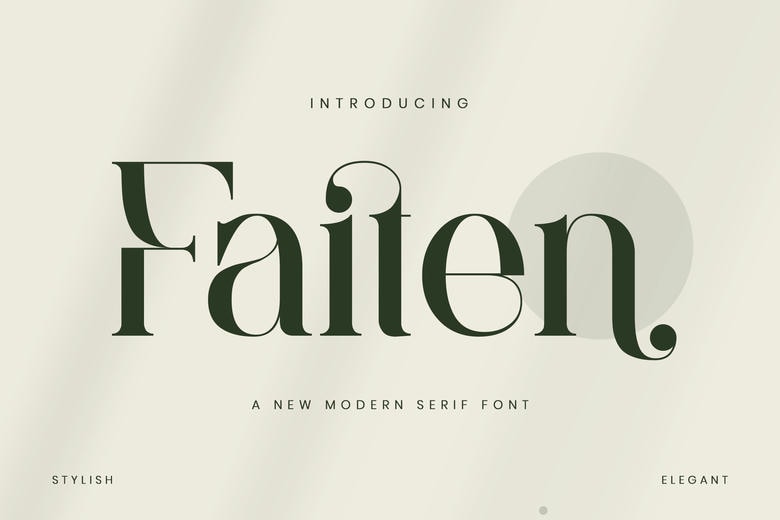
Faiten Font
Faiten font is a very unique looking and elegant modern serif font, with strong vertical axes and unexpected almost script-like flourish in the bowls and terminals of some of the characters. This contrasting high-contrast typeface has strong, authoritative serifs with beautifully elongated and dramatic curves, which give the typeface a sophisticated tension that is both classic and decidedly contemporary.
Faiten typeface is domineering and suitable in a high-impact branding. The Faiten font is ideal to the editorial designer, high-end packaging designer, and modern literary cover designer, as well as to the designer of the sophisticated event brand or unique magazine masthead, offering a powerful and varied tool to convey a message of smart upscale professionalism and creativity.
Faiten Serif Font